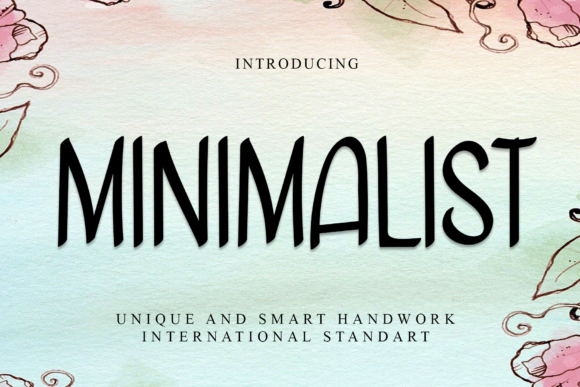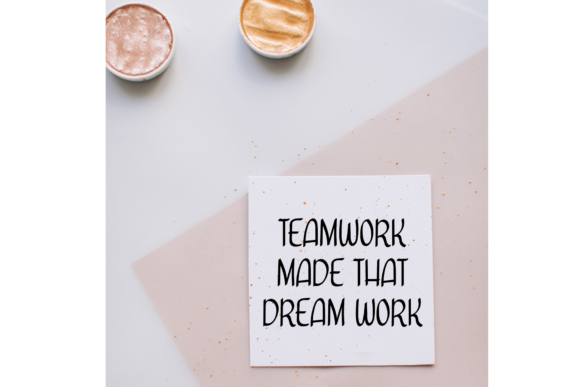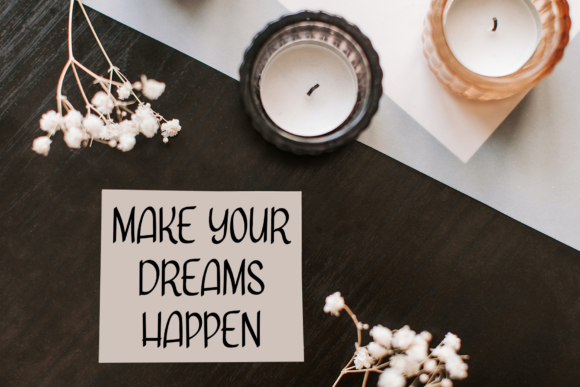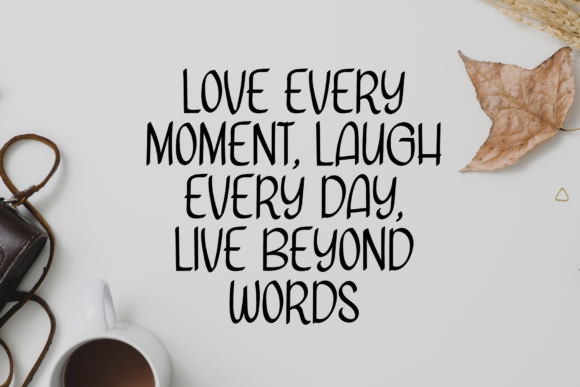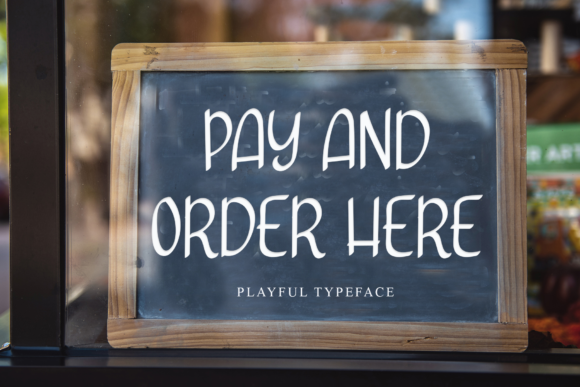
Minimalist Font
About Minimalist Font
Minimalist is a simple and fun script font. Minimalist will look outstanding in any context, whether it’s being used on busy backgrounds or as a standalone headline!